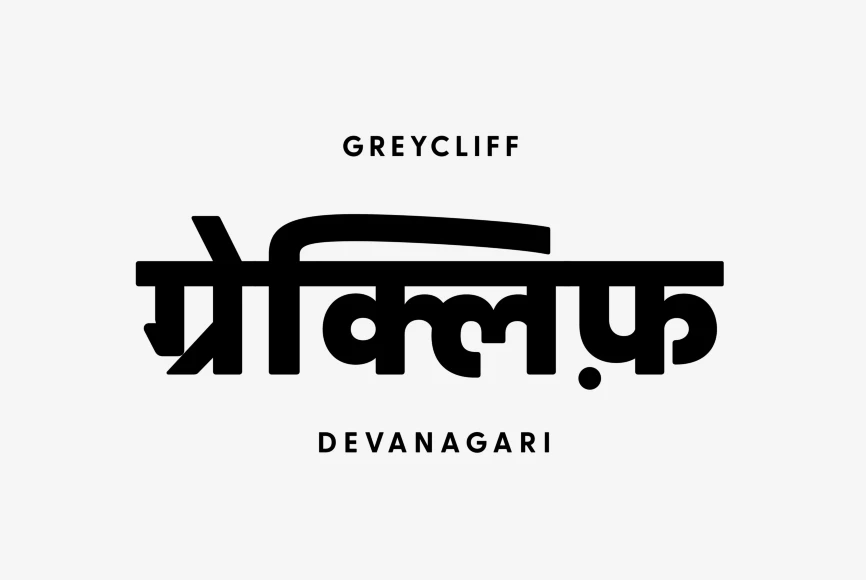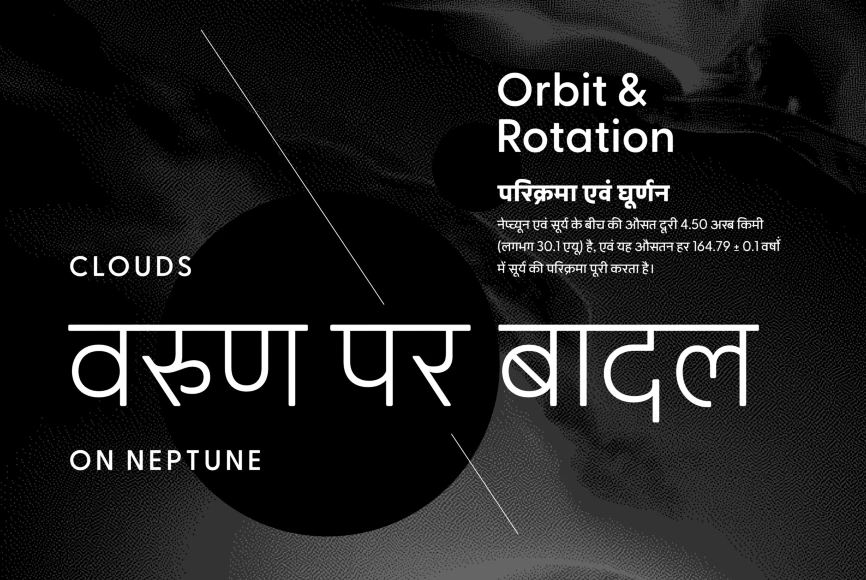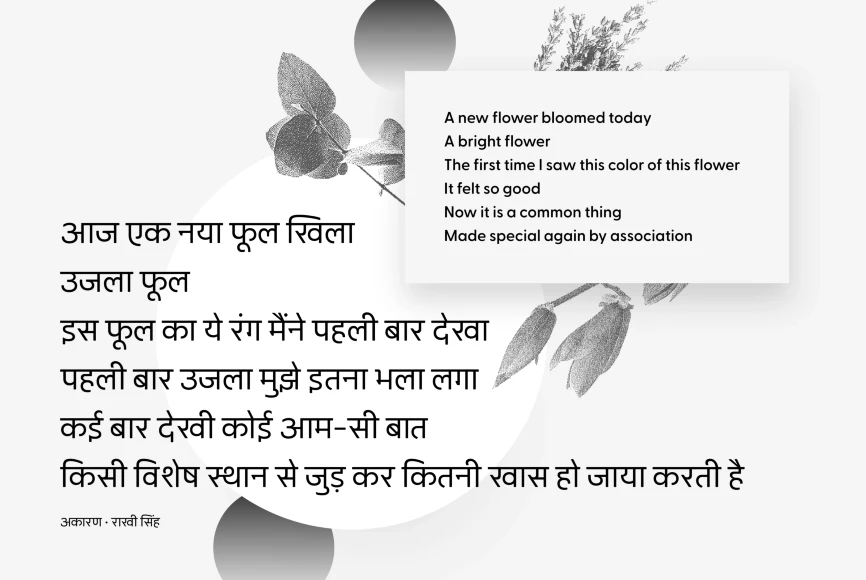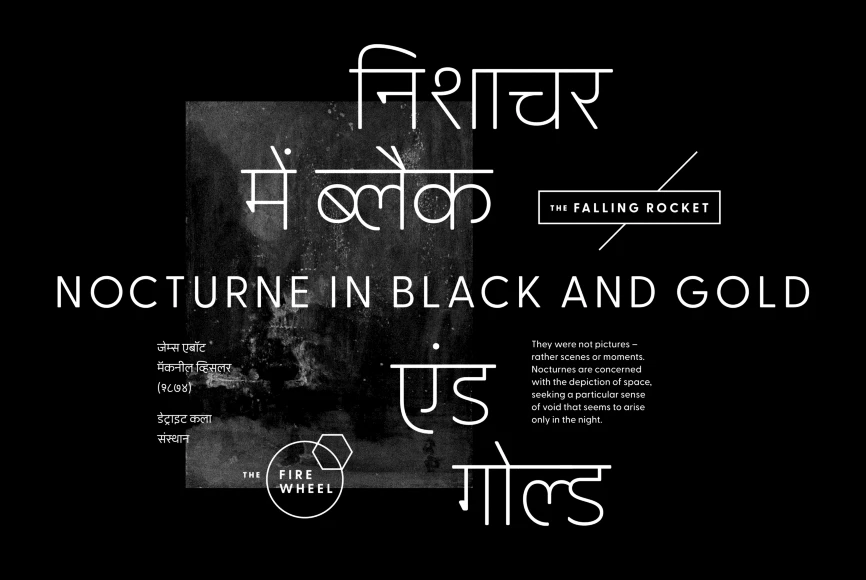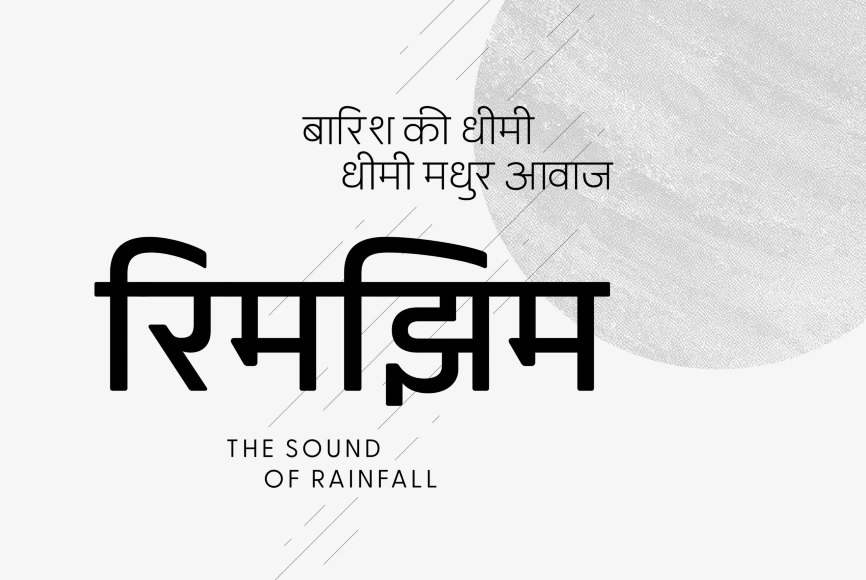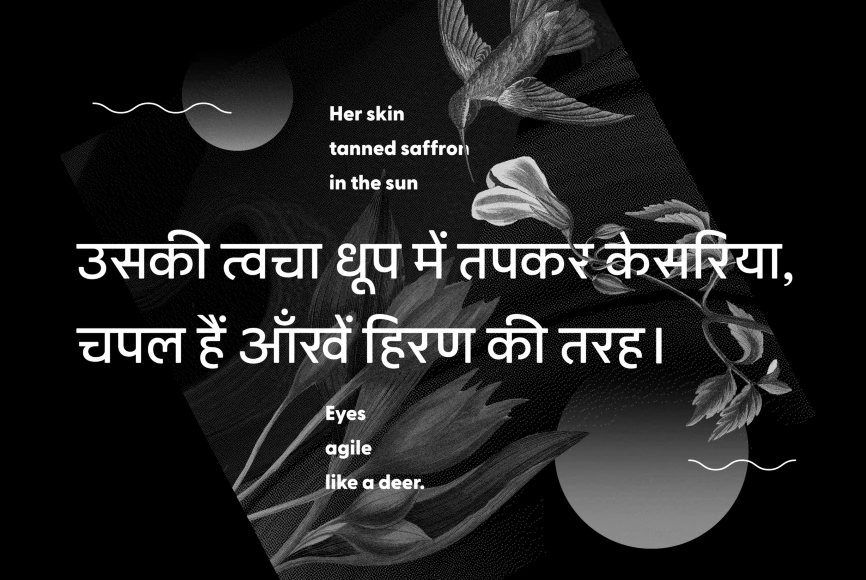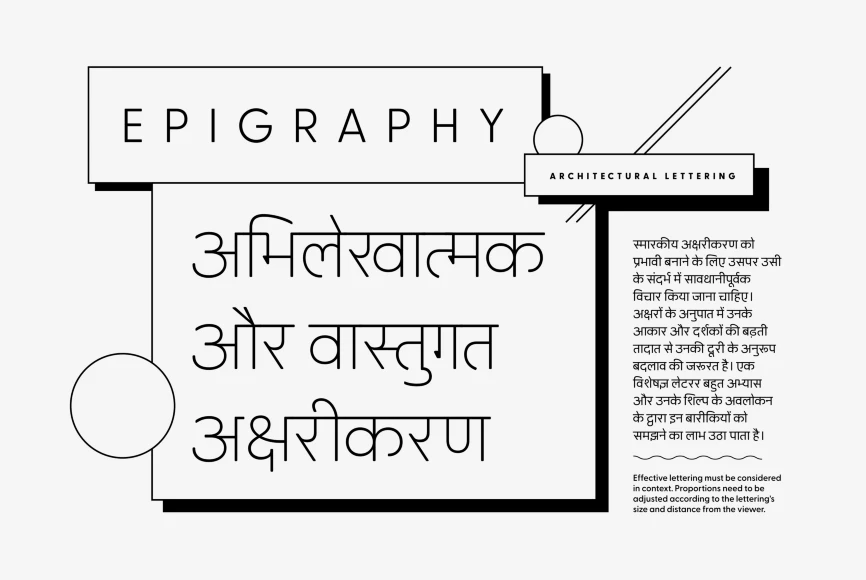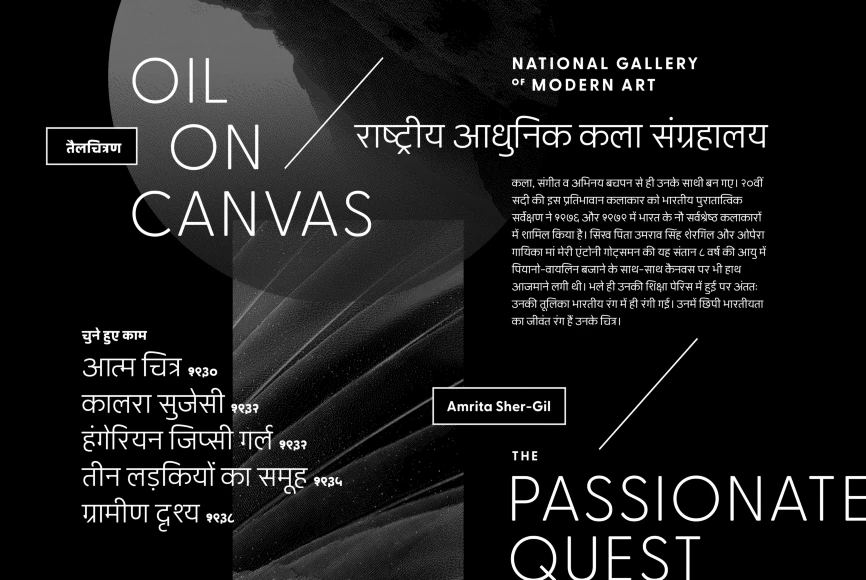
Greycliff Devanagari
From Connary Fagen Fonts
Greycliff Devanagari CF is an adaptation of the original Greycliff typeface to the Devanagari script. The geometric, monolinear design of the original sans serif is recreated in full, allowing for cohesive multilingual applications between English and Hindi, Marathi, Nepali, Sanskrit, and more.
Designed by Connary Fagen